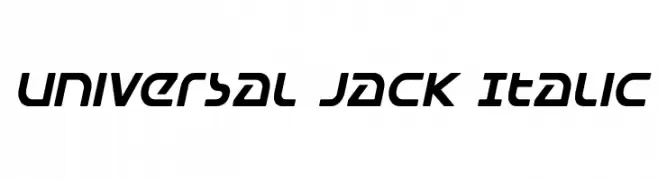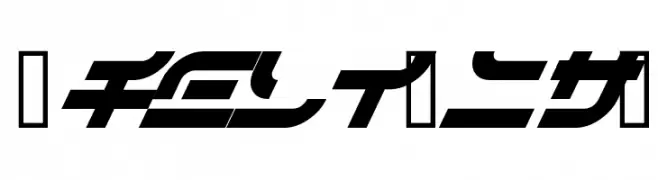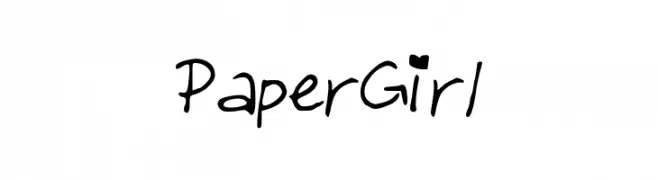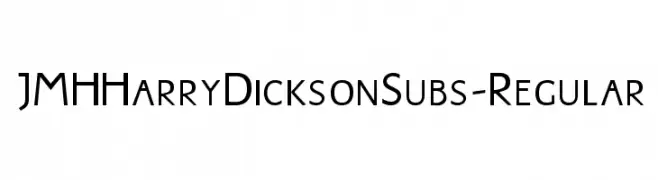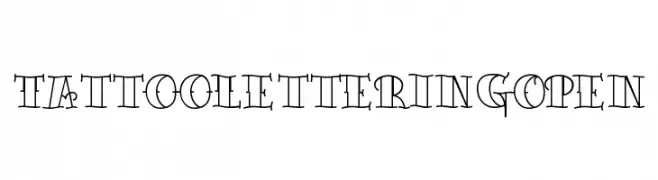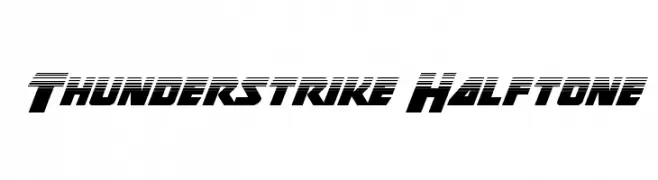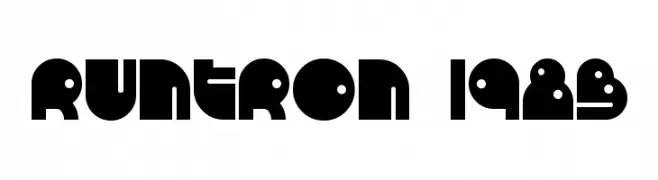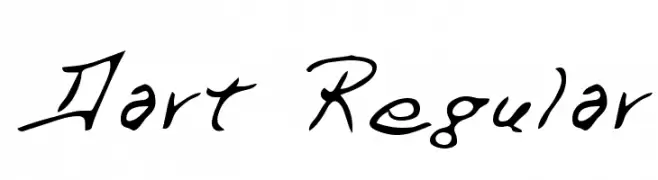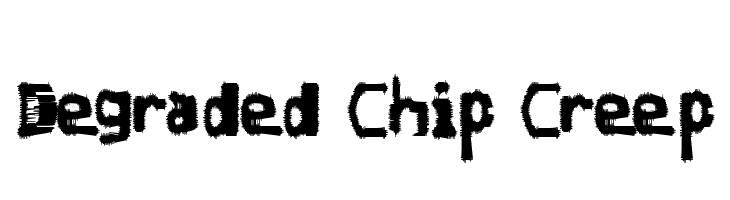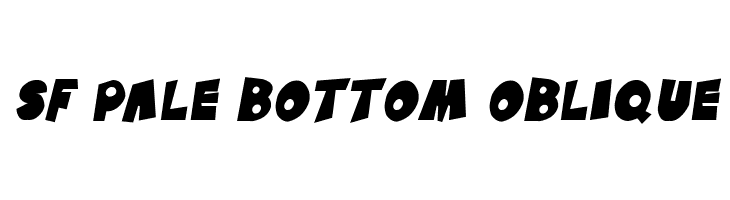
A modern italic font with a sleek, dynamic style and smooth, rounded edges.
A bold, cursive script font with elegant, flowing strokes and ornate details.
A playful, casual handwritten font with irregular, whimsical letterforms.
An artistic and ornate font inspired by traditional tattoo lettering, featuring intricate lines and curves.
A bold, dynamic font with a halftone effect and futuristic style.
A bold, geometric font with an industrial and modern aesthetic.
A bold, geometric font with a futuristic and blocky design.